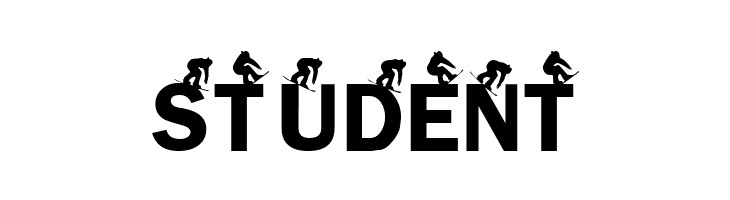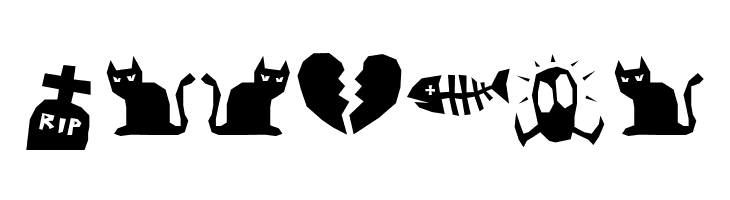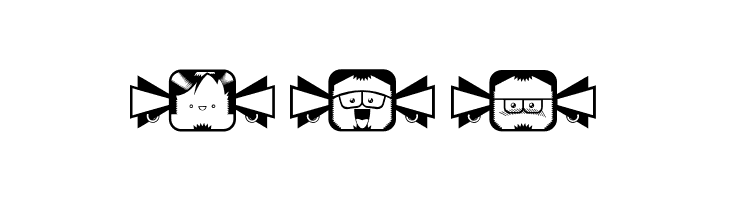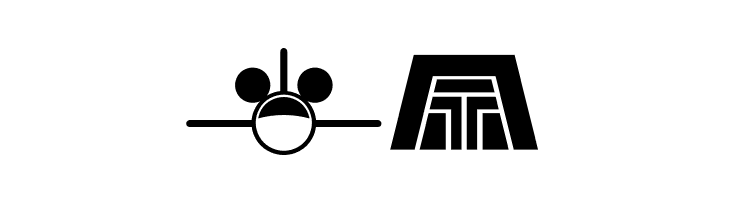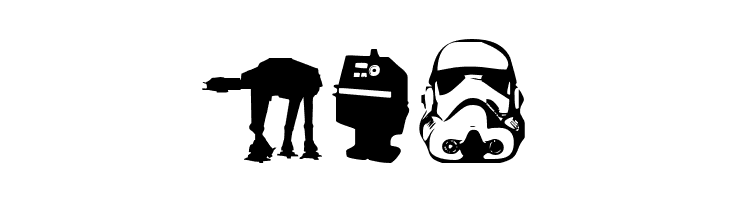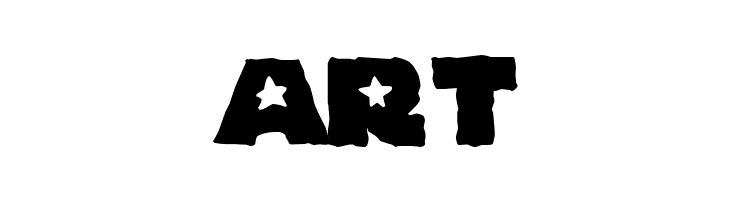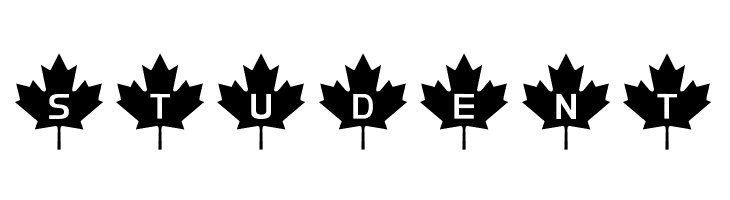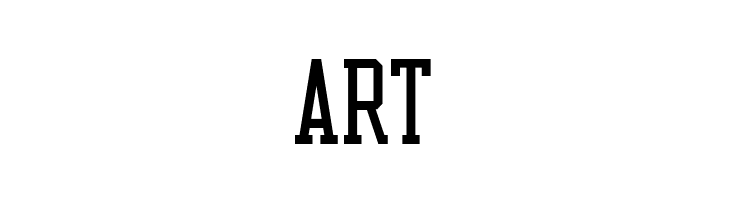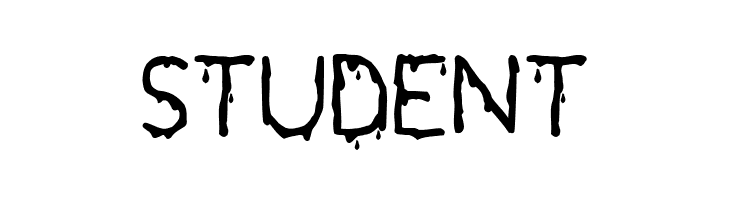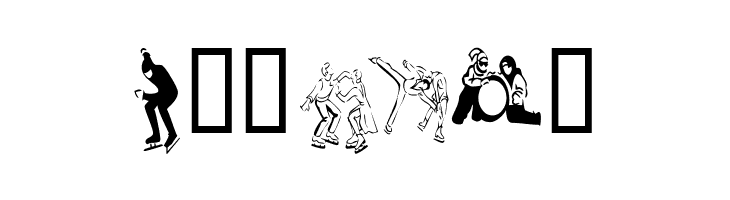
Halloween-themed pictogram font with spooky illustrations.
A bold, retro-inspired font with starburst effects and outlined characters.
A dripping, eerie font perfect for horror-themed designs.
A bold, nature-inspired font with a playful and organic design.
A bold, patriotic-themed font with stars and stripes, ideal for decorative use.
A playful, panda-themed decorative font with bold, cartoonish icons.
A bold, dripping font ideal for horror-themed designs.
A bold, playful font with an urban, hand-drawn style.
Cartoon and pixel art character font inspired by classic video games.
A bold, geometric outline font with a collegiate sports team vibe.